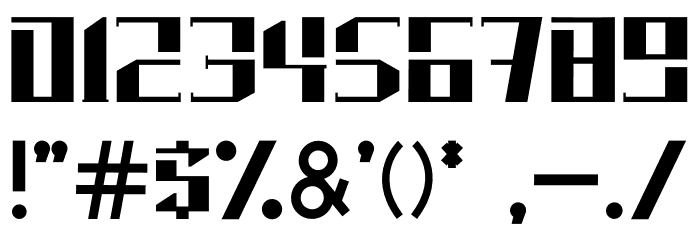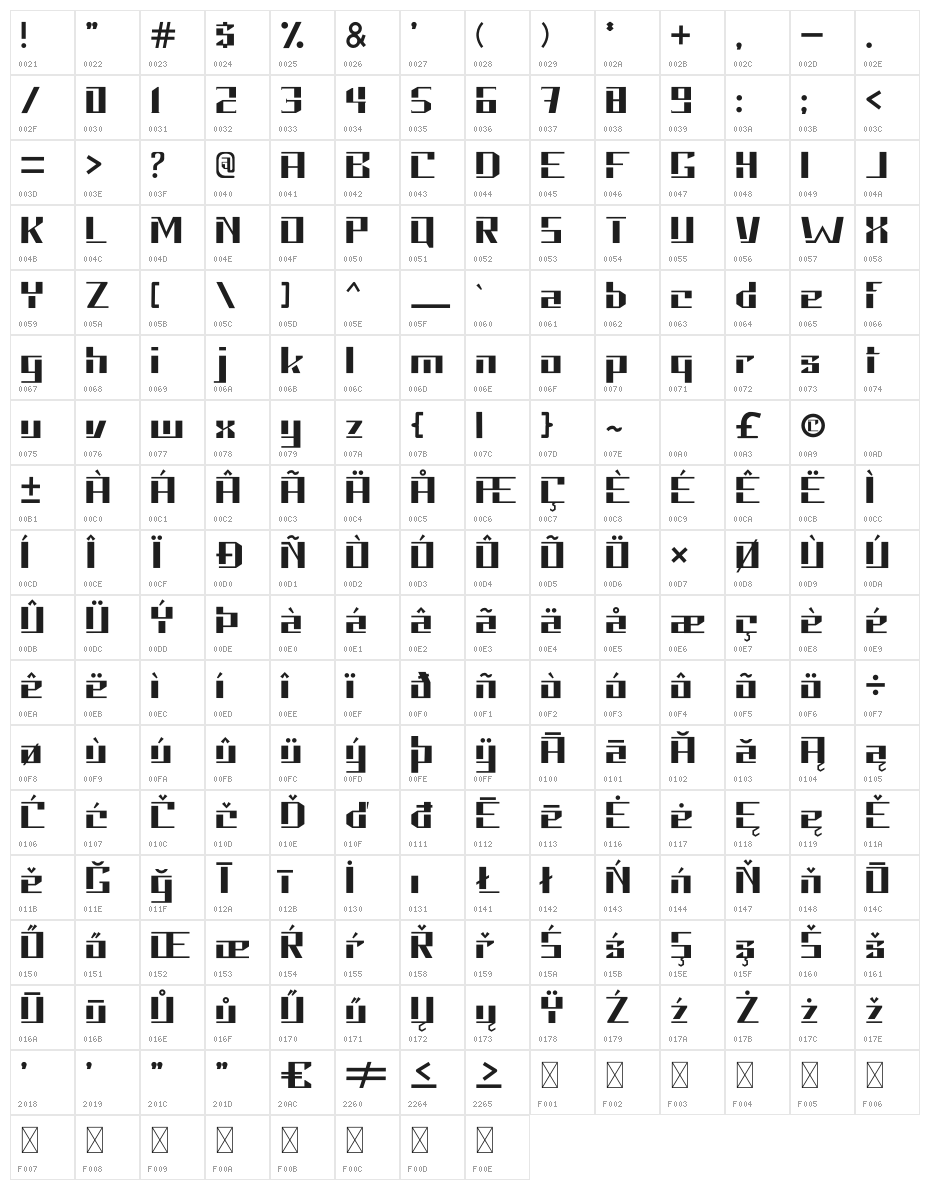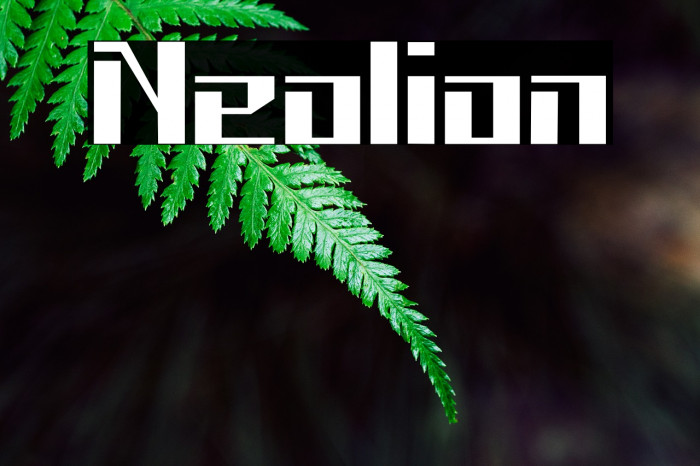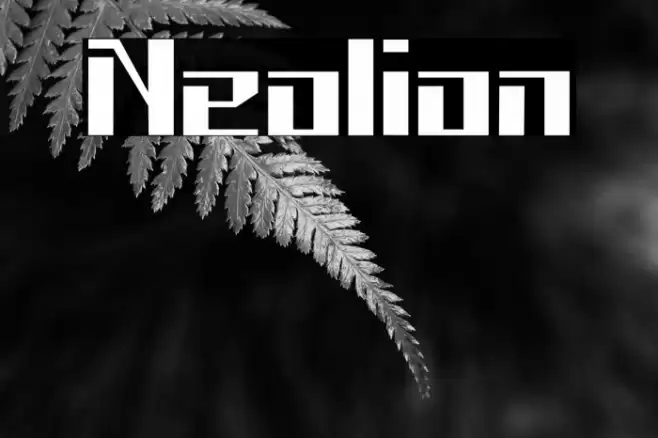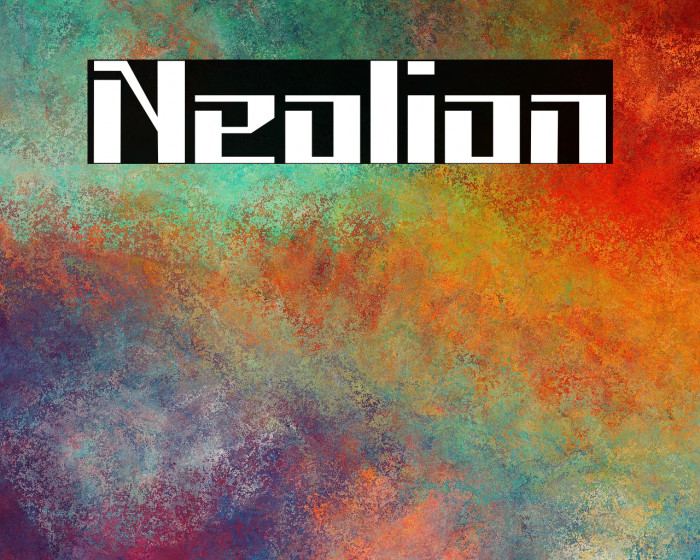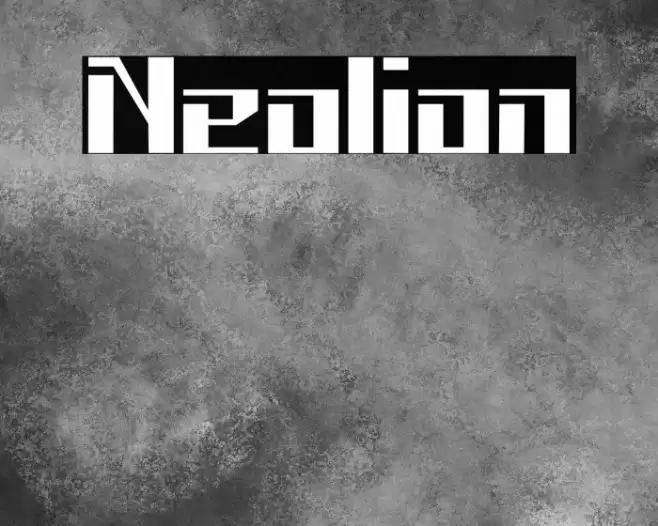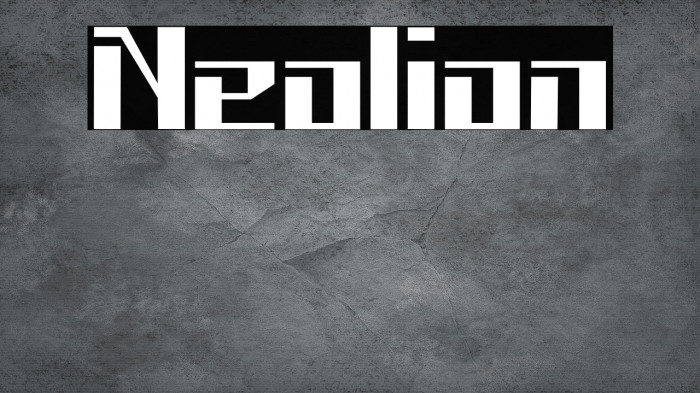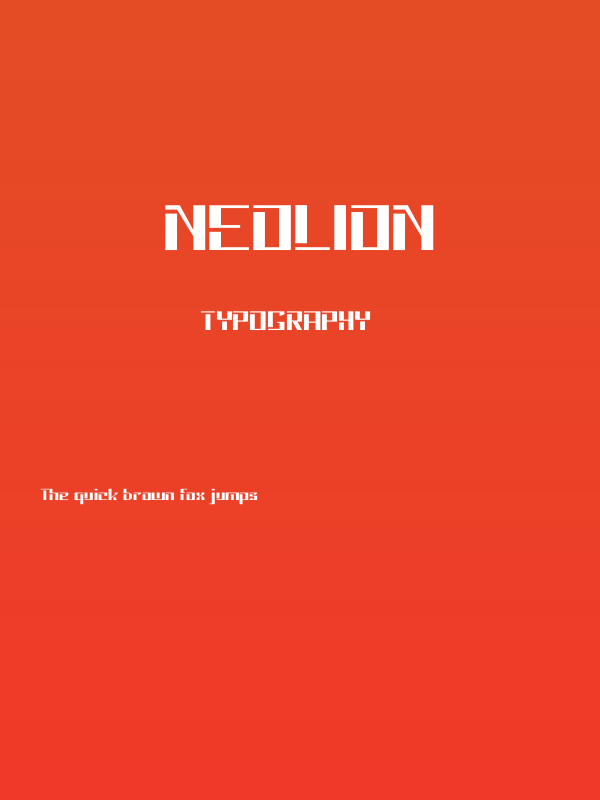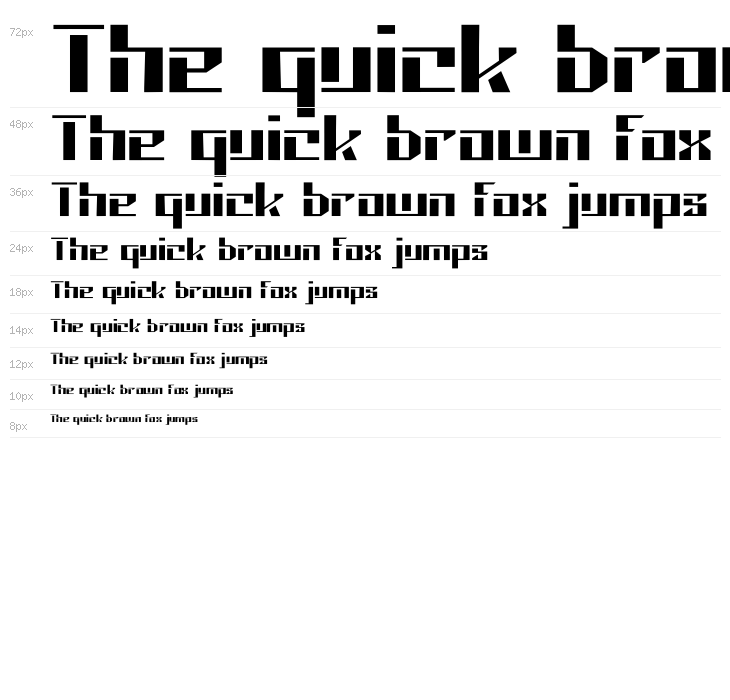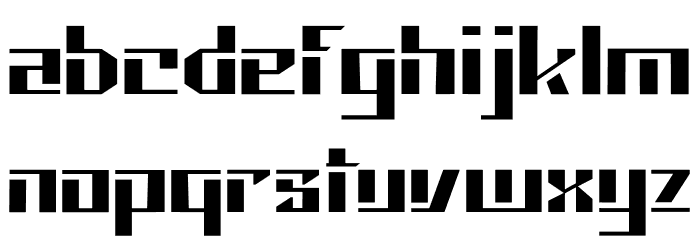
Neolion Font
Neolion Description
This font features a bold, geometric design with sharp angles and a futuristic aesthetic. The uppercase letters are distinct with their angular cuts and strong presence, while the lowercase letters maintain a similar style, offering a cohesive look. The numbers and special characters follow the same design principles, ensuring uniformity across all glyphs. The font's unique style makes it stand out, with a modern and edgy feel that is perfect for attention-grabbing designs. Its boldness and geometric shapes make it ideal for projects that require a strong visual impact.